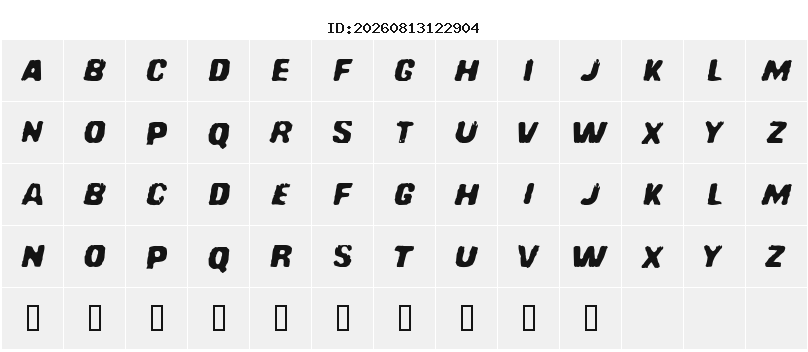
Red Comet Five to Mars Preview
• Font Name: Red Comet Five to Mars
• Full Font Name: Red Comet Five to Mars
About Red Comet Five to Mars.ttf
Red Comet Five to Mars.ttf is a modern, elegant sans-serif font designed for ultimate readability and visual harmony. Perfect for branding, headlines, web design, and print materials.